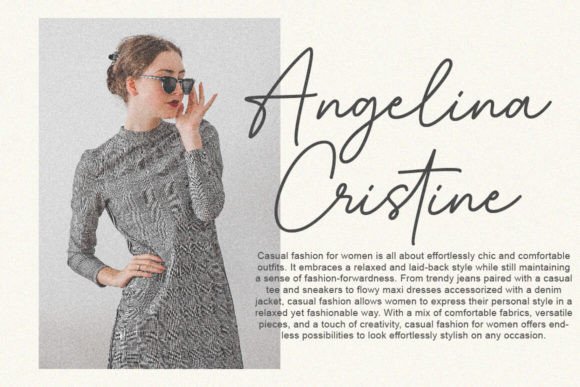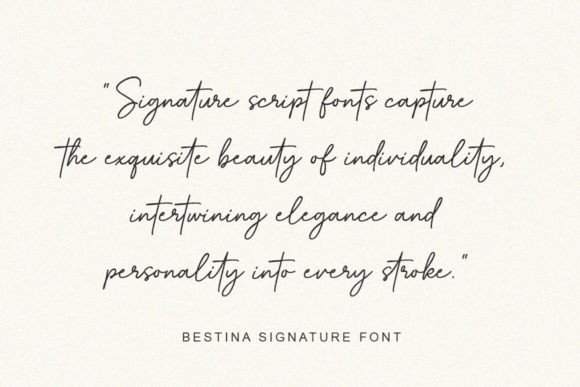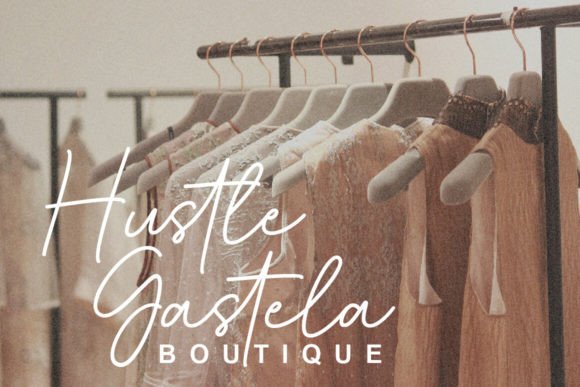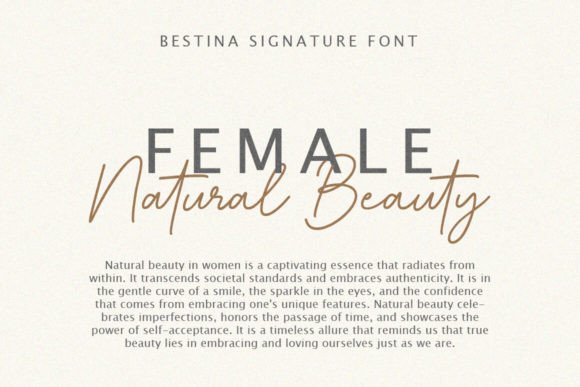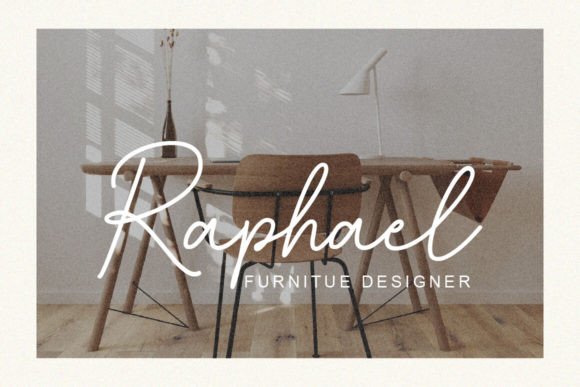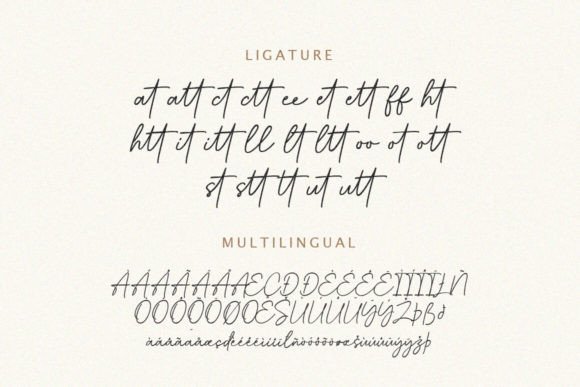
Introduction to Bestina Signature Font Font
Fonts play a crucial role in design, and the Bestina Signature Font font is a typeface that brings both character and versatility to any project. Whether you’re working on a branding project, a website, or a print design, the Bestina Signature Font font offers a unique style that can elevate your work.
Bestina Signature Font is a delicate signature-style script handwriting font.
With delicate and graceful lines, this font adds a personal and sophisticated touch to your designs Use Bestina Signature Font to add an exclusive and elegant touch to logos, invitations, marketing materials, and various other design projects that require a special handwritten style.
Key Features of Bestina Signature Font Font
Why Choose Bestina Signature Font Font?
The Bestina Signature Font font is more than just a typeface – it’s a design tool that helps you communicate your message with style and clarity. Its unique character set and versatile design make it suitable for a wide range of applications, from elegant invitations to bold headlines.
With its carefully crafted letterforms and balanced proportions, the Bestina Signature Font font ensures readability and visual appeal across all mediums.
What makes Bestina Signature Font font special?
The Bestina Signature Font font stands out with its unique design, exceptional readability, and versatility across various design applications.